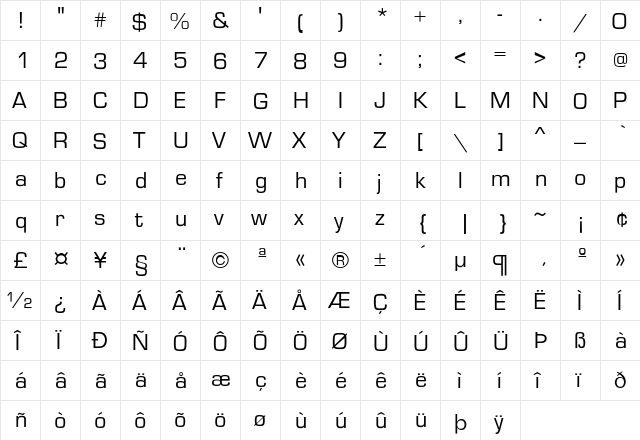
Eurostile-Roman-DTC Regular
Design Context for Eurostile-Roman-DTC Typeface
Eurostile-Roman-DTC is a composed and adaptable typeface that performs quietly and consistently across a wide range of design contexts.